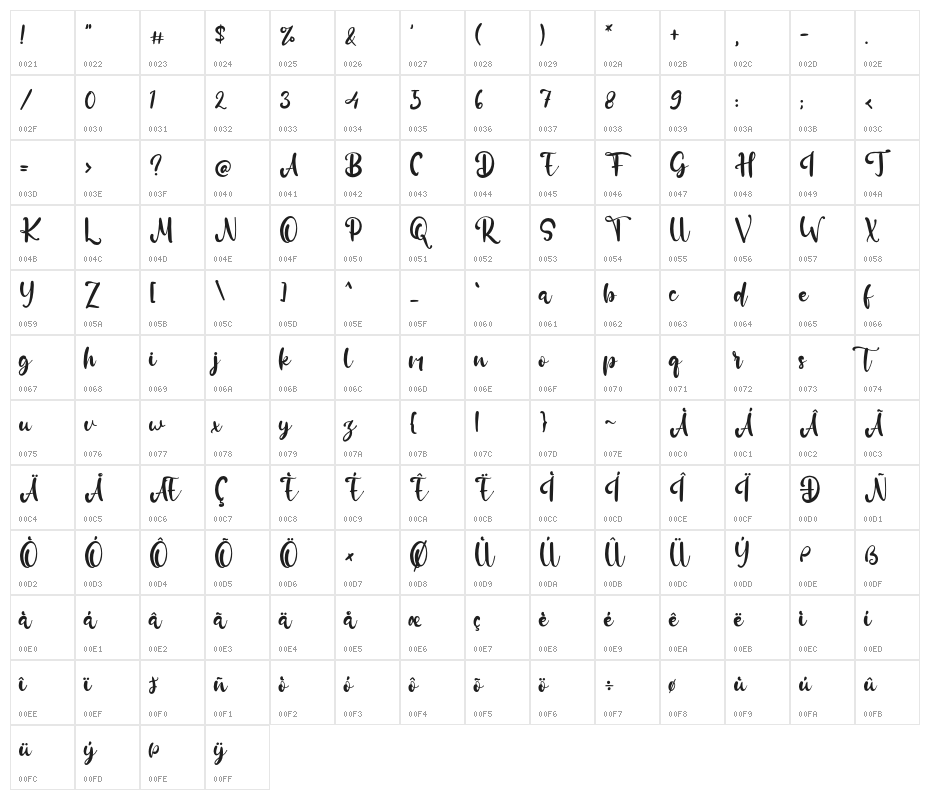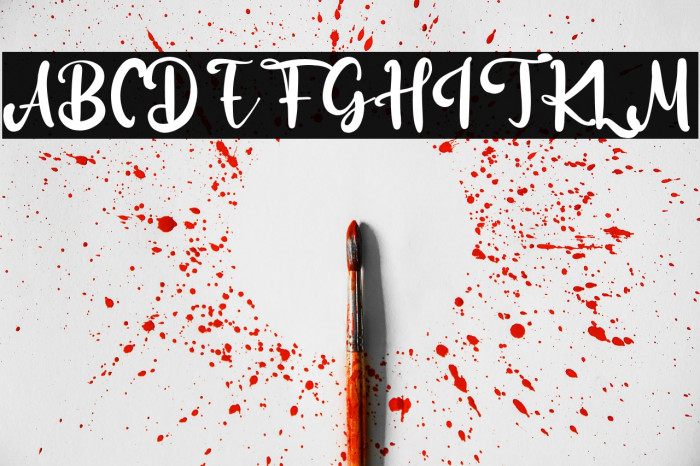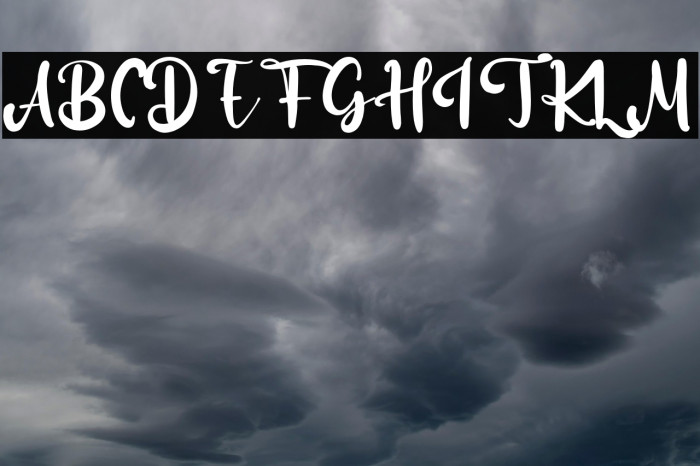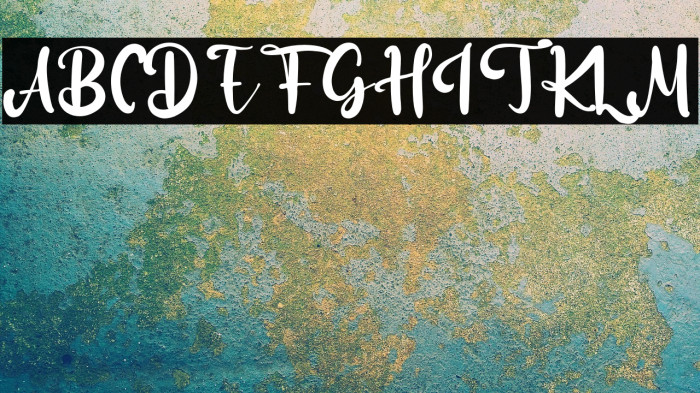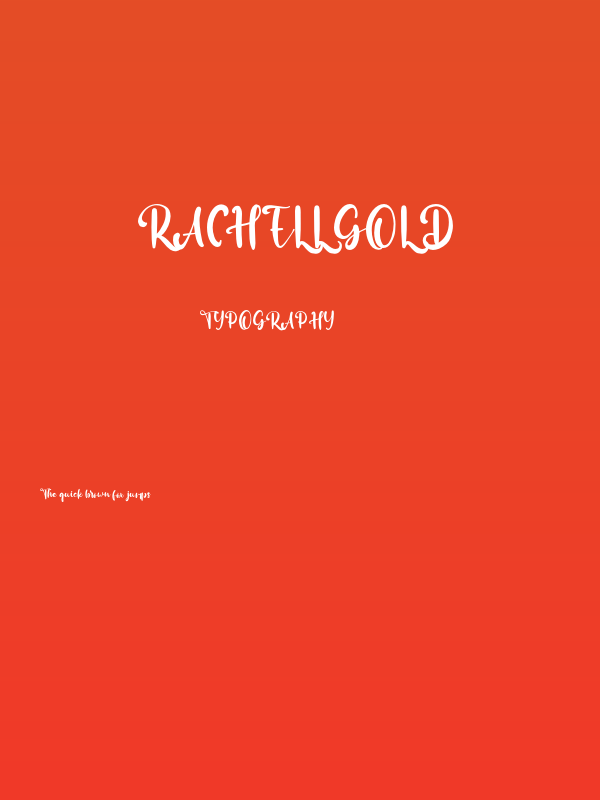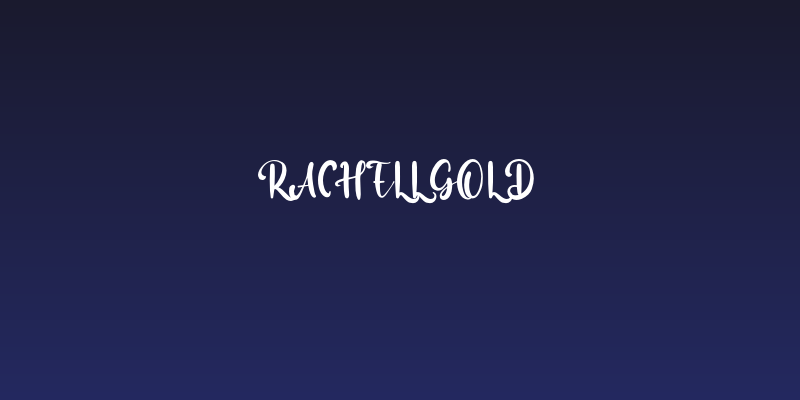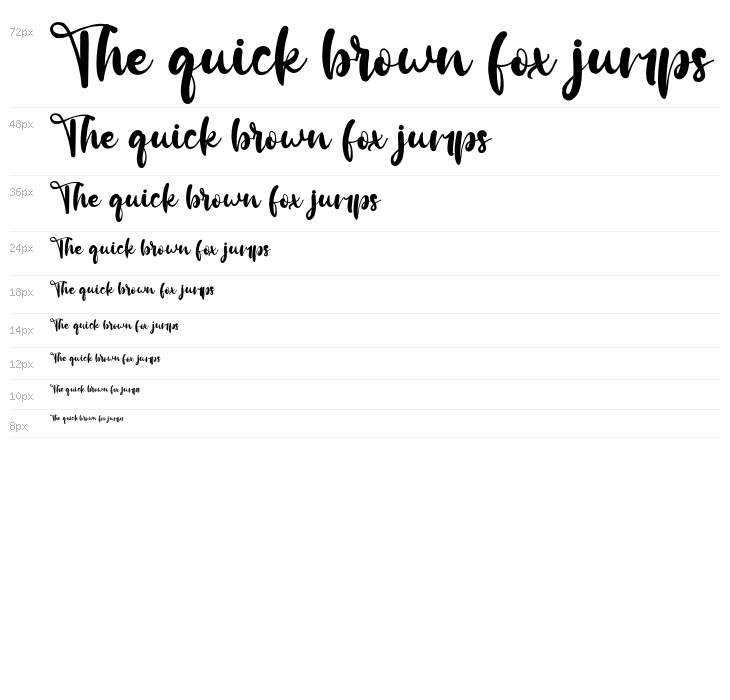
RachellGold Font
| 用途 | Logos, Invitations, Creative projects |
| おすすめプロジェクト | Perfect for wedding invitations, greeting cards, branding, and creative projects that require a personal and artistic touch. |